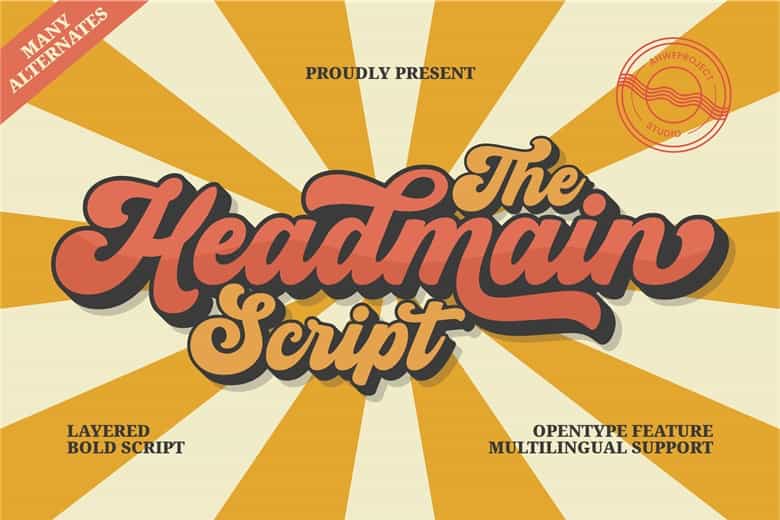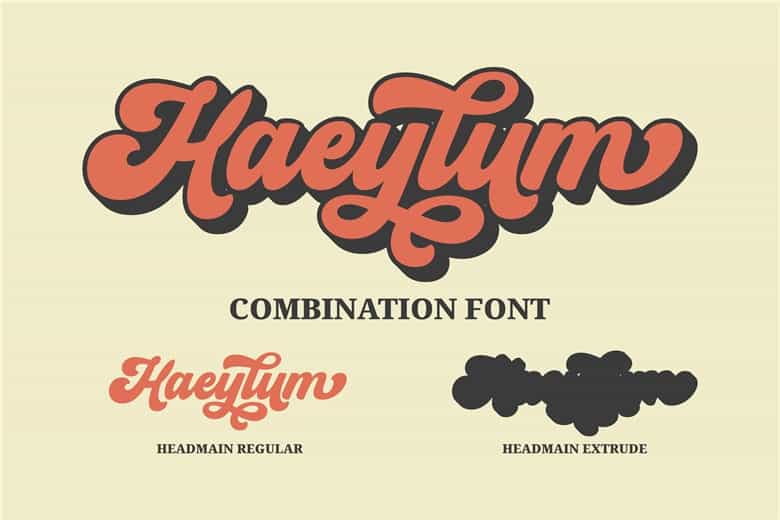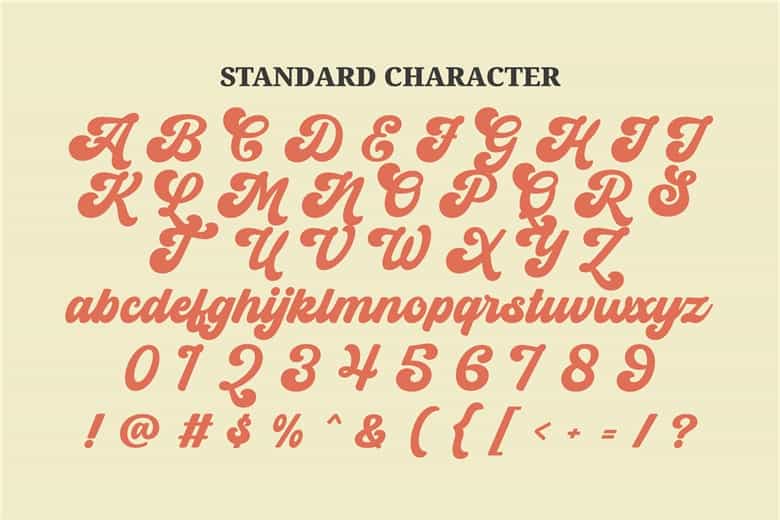
Headmain is a bold and dynamic layered script typeface with a retro vibe. Its fluid curves and thick strokes imbue it with a striking, energetic vibe highly suited to eye catching headline, branding, posters and vintage inspired design. Headmain comes with multiple alternates and OpenType feature, which offers versatility of creation and possibility to craft unique and expressive typography.